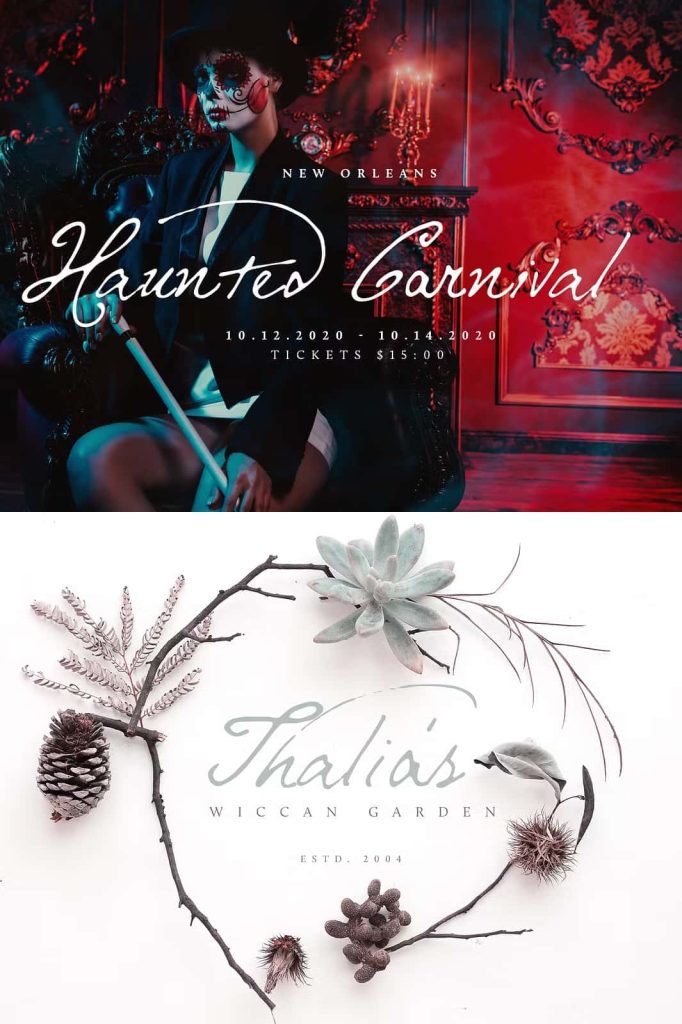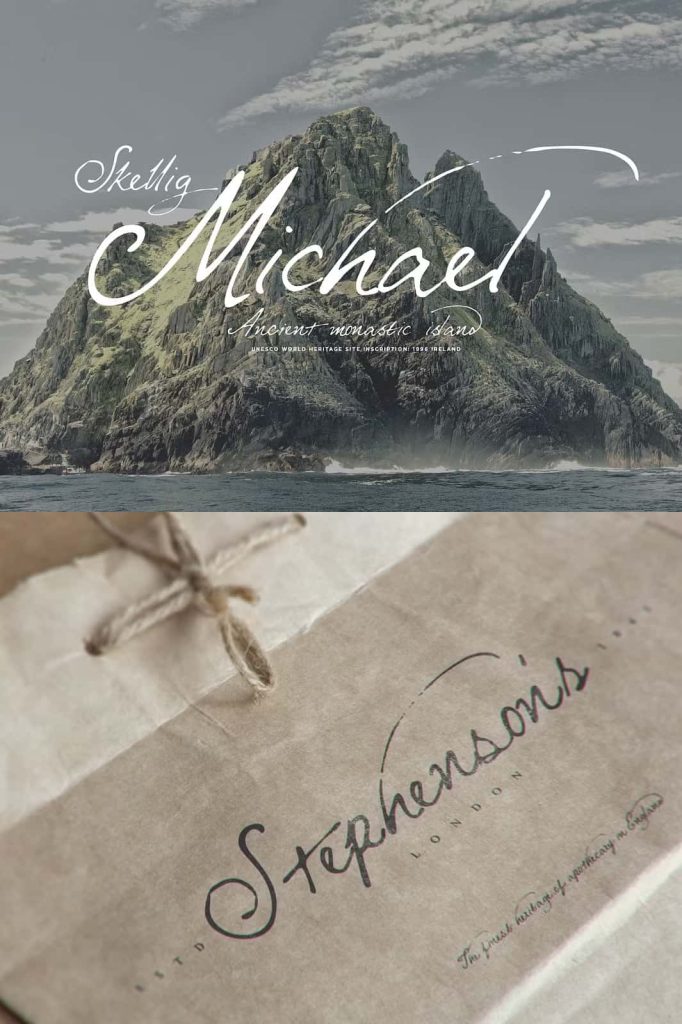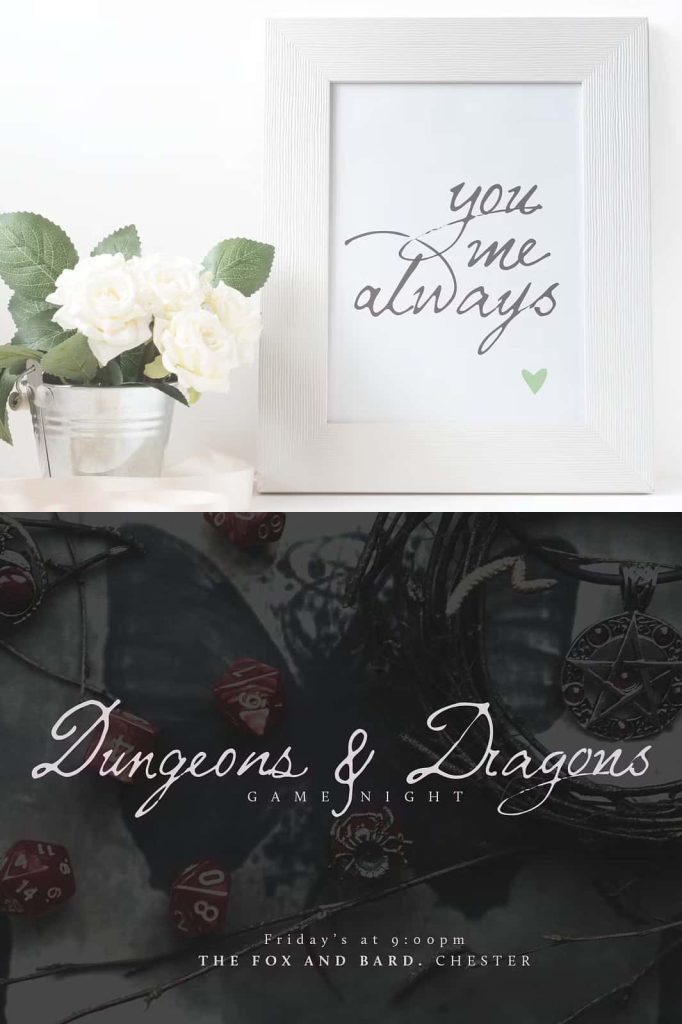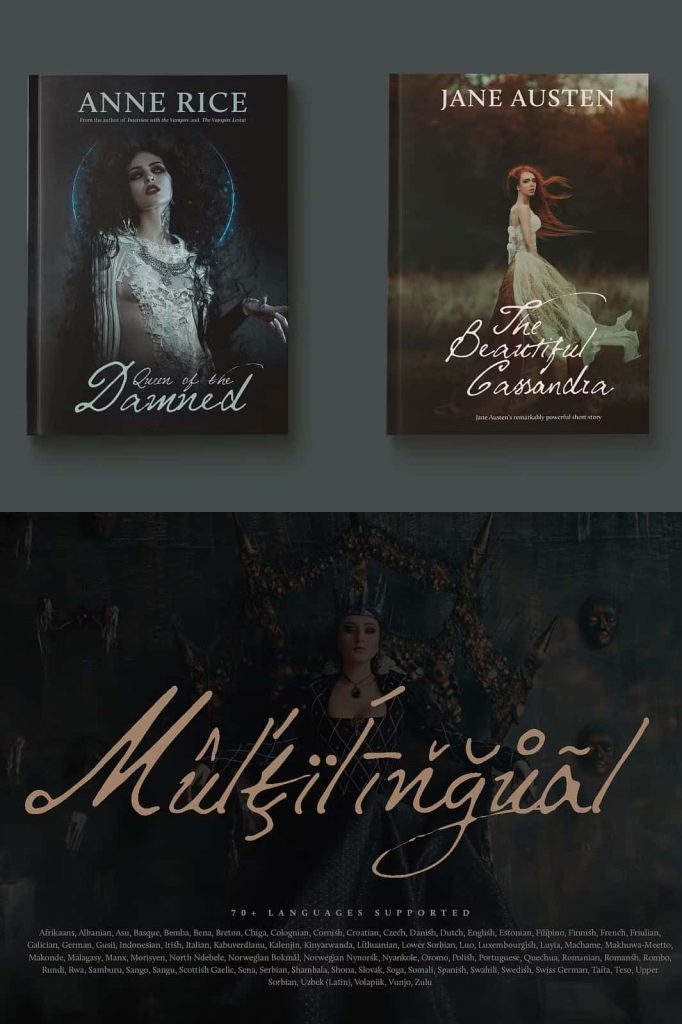
Mythshire: An Elegant Medieval Font Rich in Character and Timeless Style
Mythshire is an elegant medieval font that blends historical charm with expressive character, creating a typeface that feels rich, authentic, and visually engaging. Designed to capture the essence of medieval lettering while remaining flexible for modern creative needs, Mythshire delivers a unique typographic voice that immediately sets the tone for storytelling, tradition, and craftsmanship.
This font actively communicates depth and personality. Its informal yet refined structure allows designers to create designs that feel personal, handcrafted, and meaningful. Mythshire does not simply display text; it enhances the narrative behind every project it supports.
A Characterful Typeface with Medieval Roots
Mythshire draws strong inspiration from medieval scripts and historical manuscripts. The letterforms feature organic strokes and subtle irregularities that reflect hand-drawn traditions from centuries past. These details give the font its distinctive character and make every word feel alive and expressive.
Despite its historical influence, Mythshire remains approachable and versatile. The font balances elegance with informality, making it suitable for a wide range of creative applications. Designers can confidently use it to evoke heritage, fantasy, or vintage aesthetics without sacrificing clarity or visual appeal.
Perfect for Wedding Invites and Stationery
Mythshire excels in wedding invitations and stationery design. Its elegant medieval style brings romance, tradition, and a sense of timeless beauty to printed materials. Couples seeking a classic, storybook, or historical theme can rely on Mythshire to communicate sophistication and warmth.
From save-the-dates and invitations to menus and place cards, this medieval elegant font enhances the emotional impact of wedding designs. Its flowing forms and distinctive personality help create memorable keepsakes that feel both personal and meaningful.
Vintage Inspired Branding and Logos
For brands that want to express heritage, authenticity, or artisanal quality, Mythshire is a powerful typographic choice. The font’s medieval roots and characterful design help logos feel established, trustworthy, and rich in story. It works especially well for vintage-inspired branding, handcrafted products, and niche businesses.
Logotypes created with Mythshire actively communicate identity and purpose. The font allows brands to stand out in crowded markets by offering a distinctive visual language rooted in tradition and creativity.
Ideal for Book Jackets and Covers
Mythshire is an excellent font for book jackets and covers, particularly in genres that rely on atmosphere and storytelling. Fantasy novels, historical fiction, folklore collections, and medieval-inspired narratives all benefit from the font’s expressive and thematic qualities.
The font enhances titles and author names, setting the mood before a reader even opens the book. Its strong presence and decorative character help books attract attention while reinforcing the narrative world within the pages.
Creative Uses in Journals, Scrapbooking, and Packaging
Beyond branding and publishing, Mythshire offers exceptional versatility for creative hobbies and product design. Scrapbooking and journaling projects gain depth and personality when paired with this medieval elegant font. Its handcrafted appearance aligns naturally with personal storytelling and memory preservation.
In product packaging, Mythshire adds authenticity and visual richness. It works particularly well for handmade goods, archival-themed products, and items that emphasize history, tradition, or craftsmanship. The font helps packaging designs feel intentional and thoughtfully curated.
Perfect for Genealogy, Archival, and Fantasy Themes
Mythshire is especially well suited for genealogy projects and archival-themed work. Its historical tone reinforces the idea of lineage, memory, and preservation. Family trees, historical documents, and heritage displays gain credibility and atmosphere when set in this font.
The font also shines in wicca, fantasy, roleplaying, and medieval-inspired advertising or posters. It actively supports world-building and thematic immersion, making it a valuable asset for creative professionals working in imaginative or historical genres.
A Versatile Font for Storytelling and Design
Mythshire proves that a medieval elegant font can be both expressive and practical. Its wide range of applications allows designers to explore creativity while maintaining consistency and visual impact. From formal designs to informal creative projects, Mythshire adapts with confidence and style.